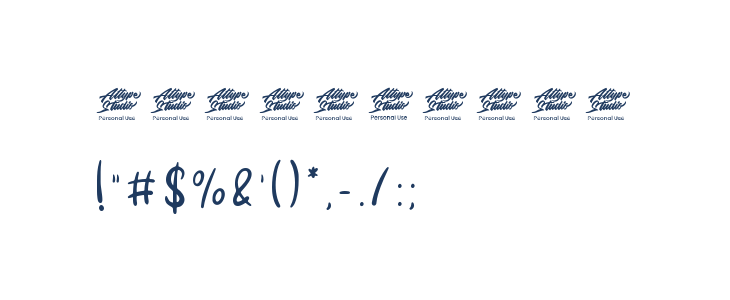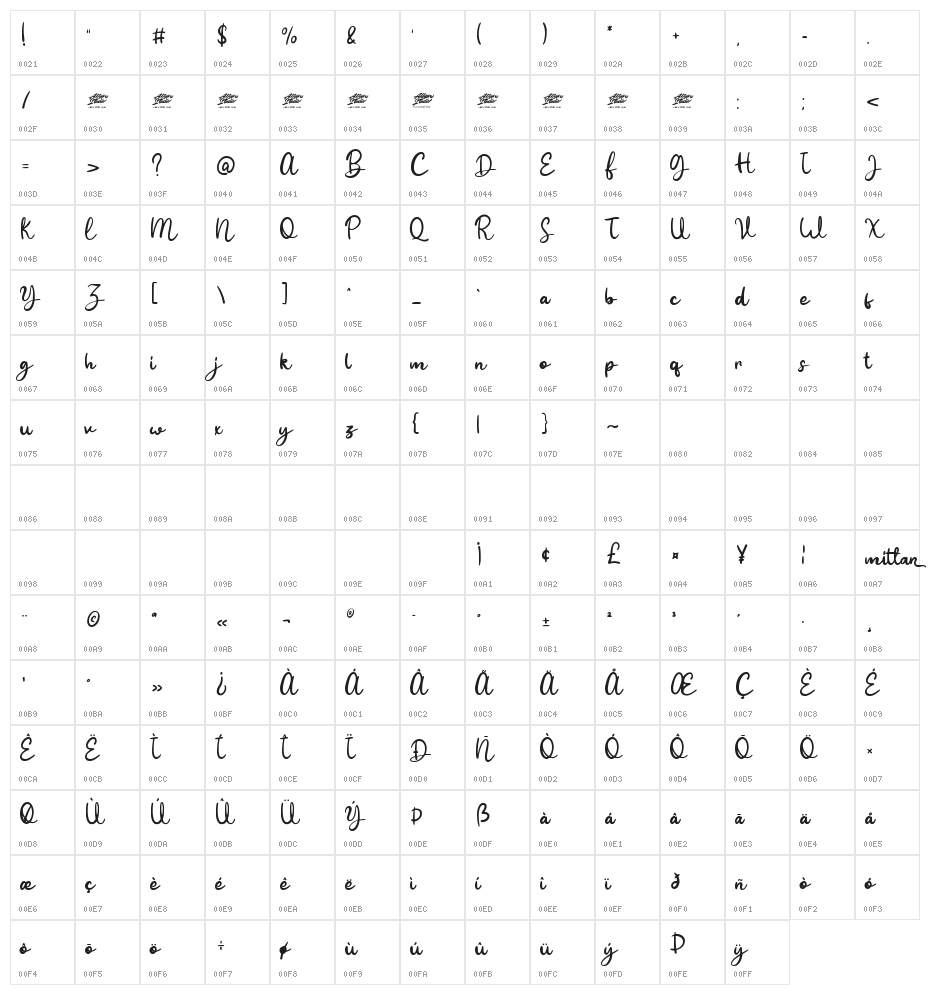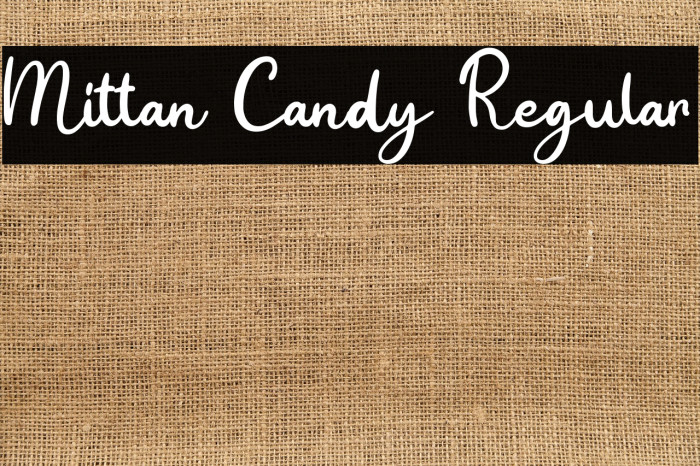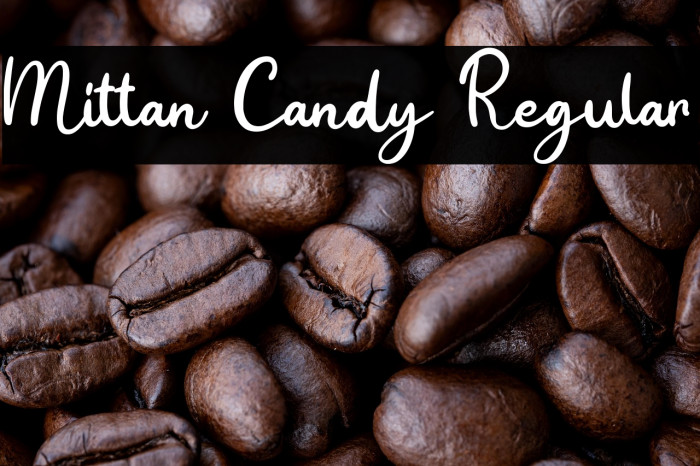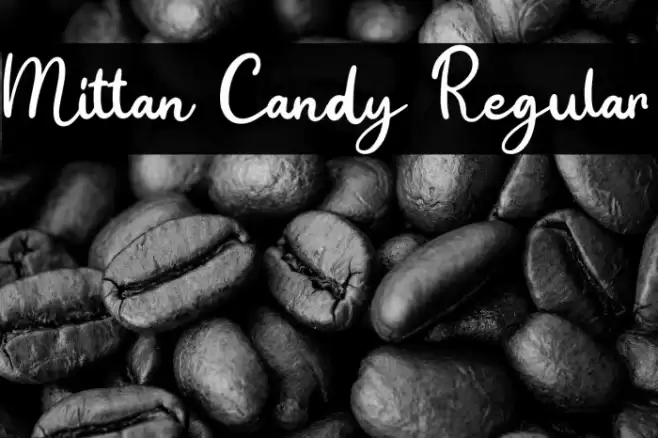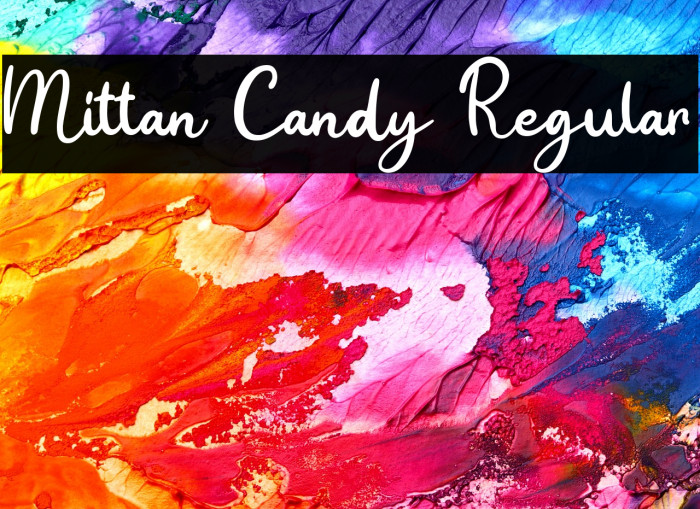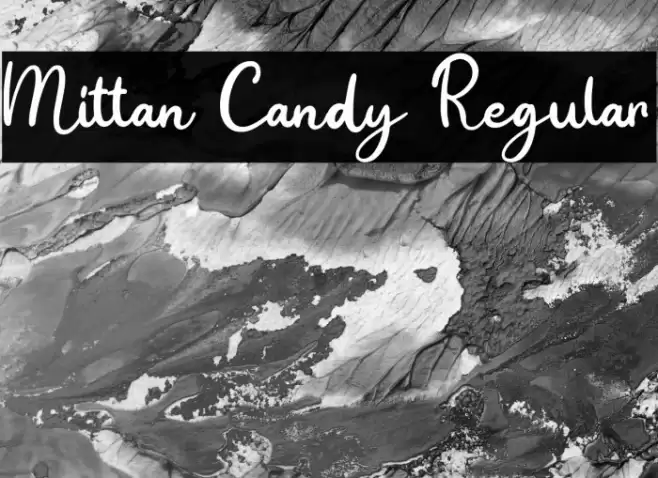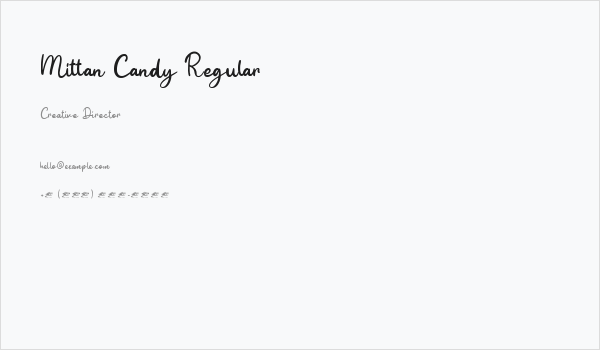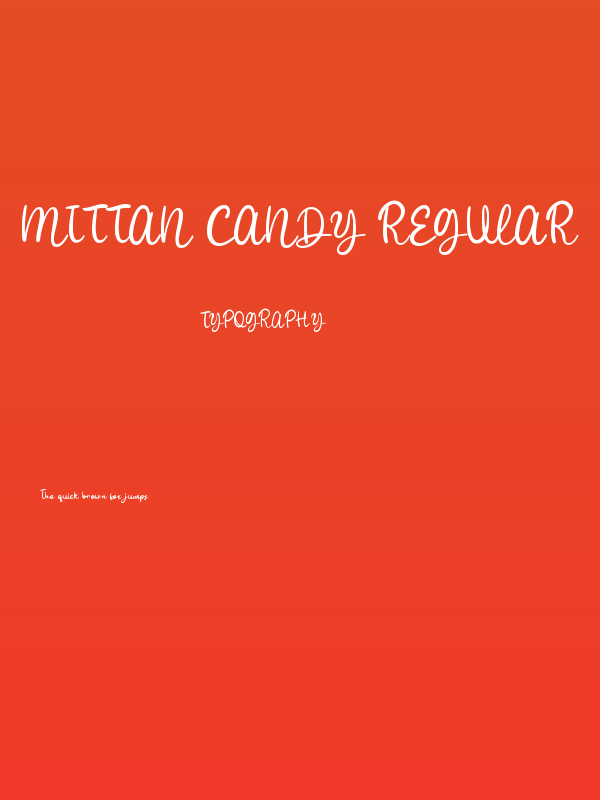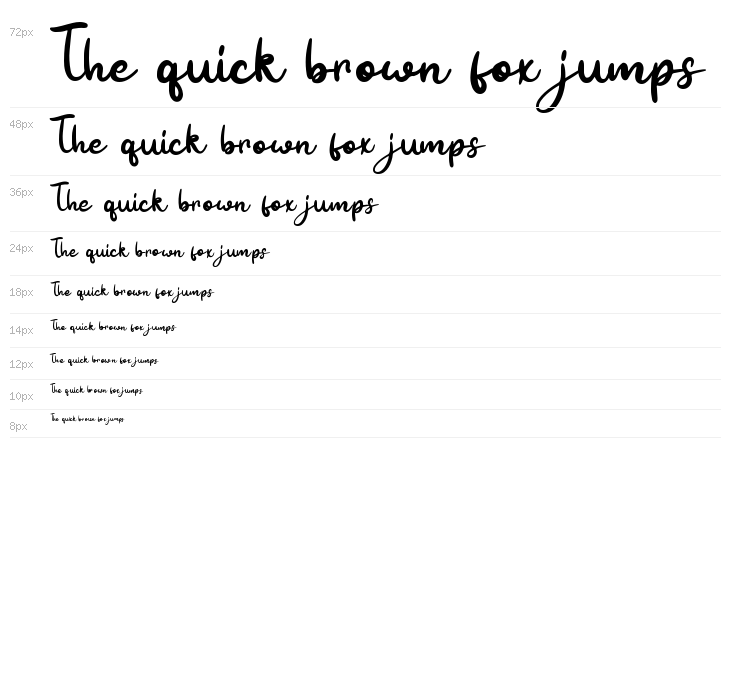
Mittan Candy Regular Font
Mittan Candy Regular Description
This font features a playful and flowing script style that exudes a sense of casual elegance. The letters are interconnected with smooth, rounded strokes, giving it a handwritten appearance. The uppercase letters are slightly more elaborate, with some featuring loops and swirls, while the lowercase letters maintain a consistent, flowing baseline. The numerals and special characters are designed to match the overall style, ensuring a cohesive look across all text. This font is perfect for projects that require a personal touch, such as invitations, greeting cards, or branding materials.
| Overall Style | Casual, Elegant |
| Proposed Projects | Ideal for invitations, greeting cards, branding, and personal projects. |
Mittan Candy Regular